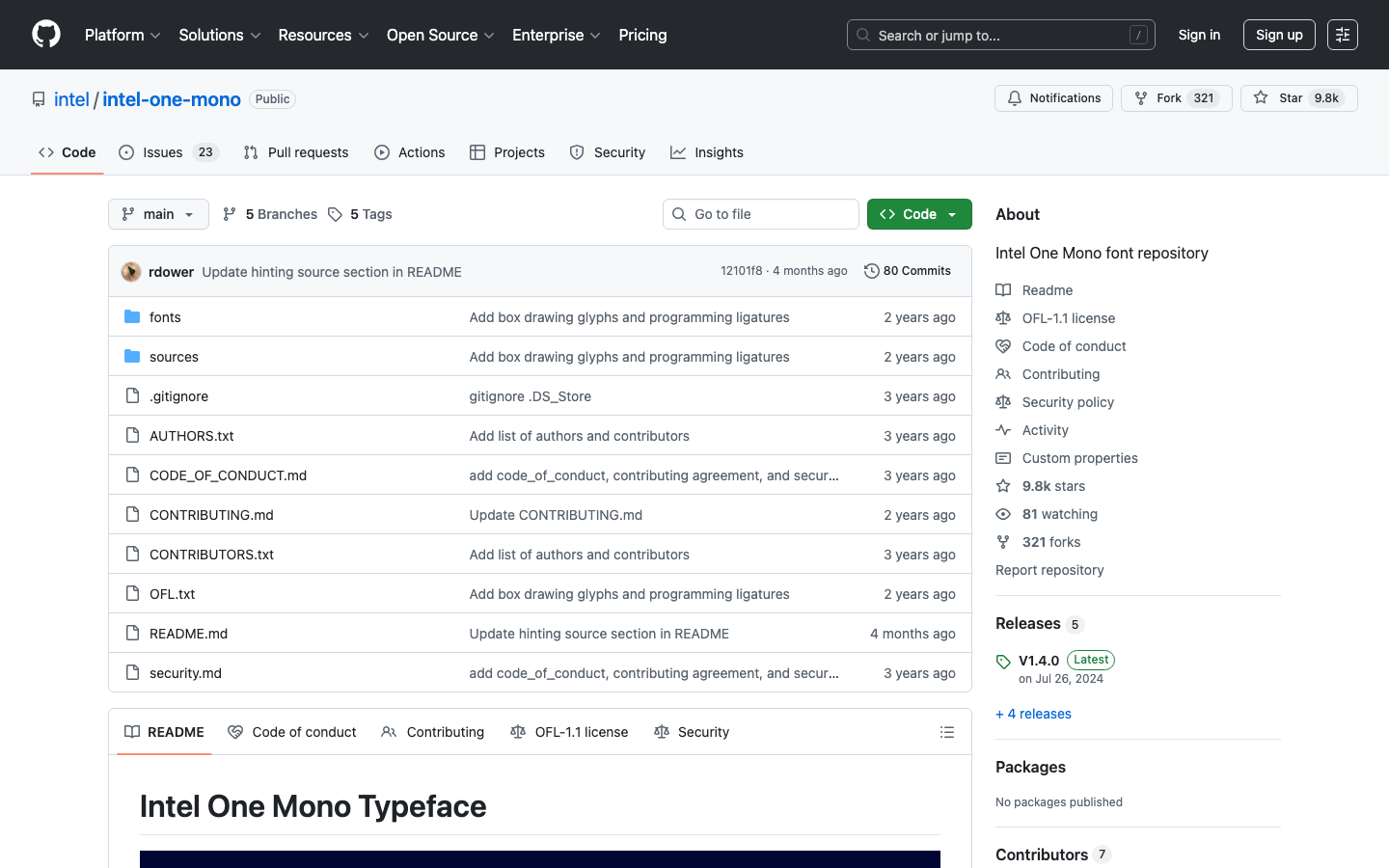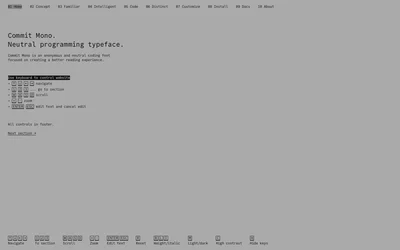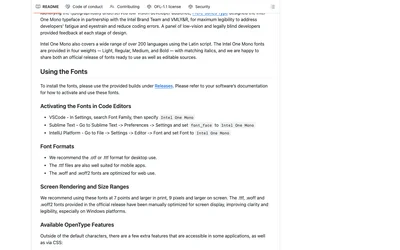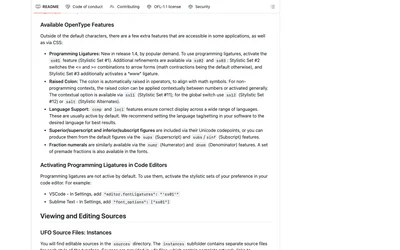
Commit Mono vs Intel One Mono
Commit Mono and Intel One Mono are both mono typefaces sharing a monospace foundation. Compare which suits your Code project.
Design overlap:75%
Commit Mono
Monospace
Minimal
Code
Intel One Mono
Monospace
MinimalReadable
Code
Commit Mono
Intel One Mono
| Feature | Commit Mono | Intel One Mono |
| Classification | mono | mono |
| Variable Font | No | Yes |
| Weights | Multiple | Variable |
| Source | Eigil Nikolajsen | Intel |
Recommended: Commit Mono
- Suited for Terminal
- From eigil-nikolajsen
Consider: Intel One Mono
- readable design character
- Suited for Accessibility
- From intel
- Available as a variable font